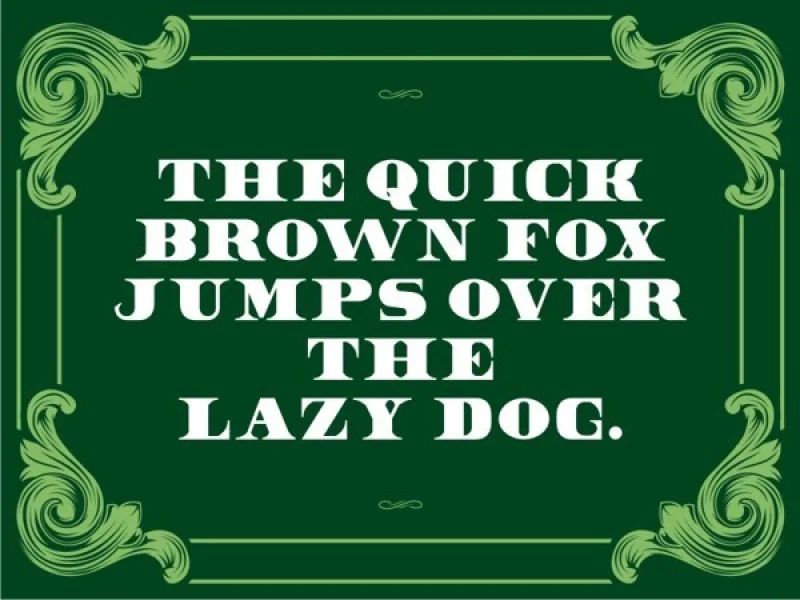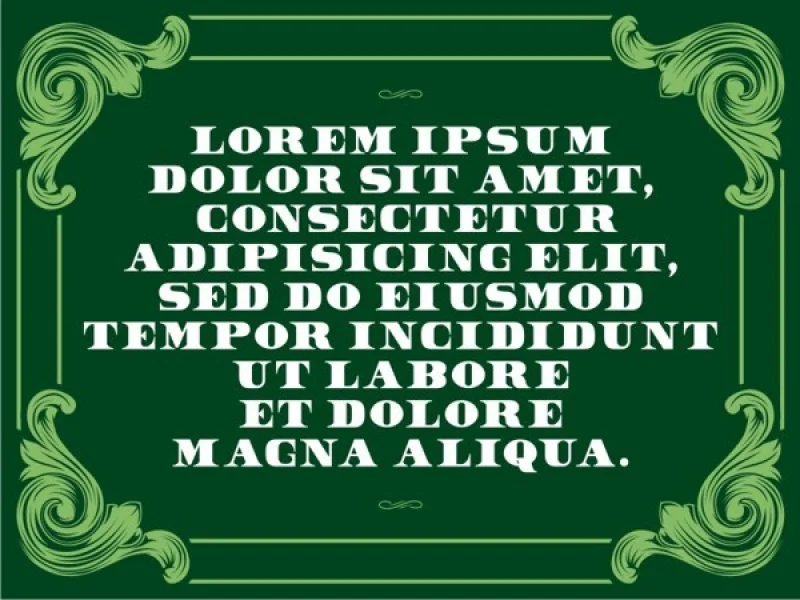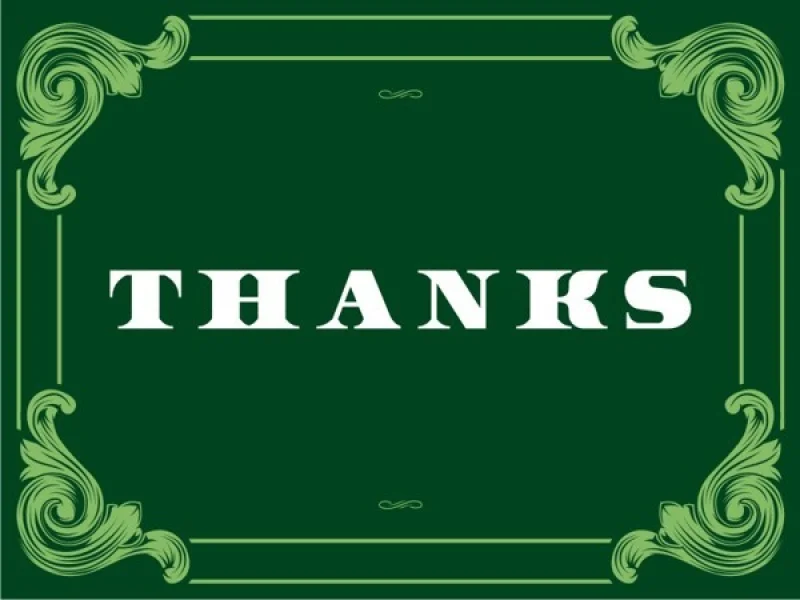
Dollar Bill; an all caps font / typeface that borrowed the letter from the money (dollar) and bank certificates. Also contained numerals and punctuation characters.